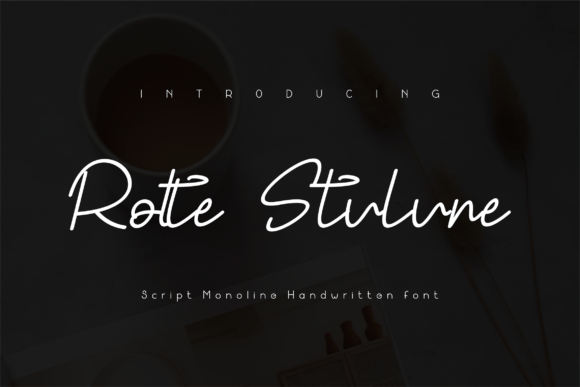
Prepare your wedding invitations with the most beautiful touch with 'Rotte Stulune'! Unleash the elegance and charm of your special day through this exquisite script font, perfect for capturing the essence of your unique love story.
Immerse yourself in the beauty of 'Rotte Stulune', where every letter flows with ethereal grace, connecting your words with undeniable allure. Feel the weight of your vows amplified as they're adorned in the delicate curves and swashes of this stunning font, making each word a testament to your love's journey.
With 'Rotte Stulune', your wedding invitations will radiate an air of sophistication and timeless charm, leaving an everlasting impression on your guests. Let the beauty of this font reflect the love that binds you, creating an unforgettable keepsake for your cherished memories.